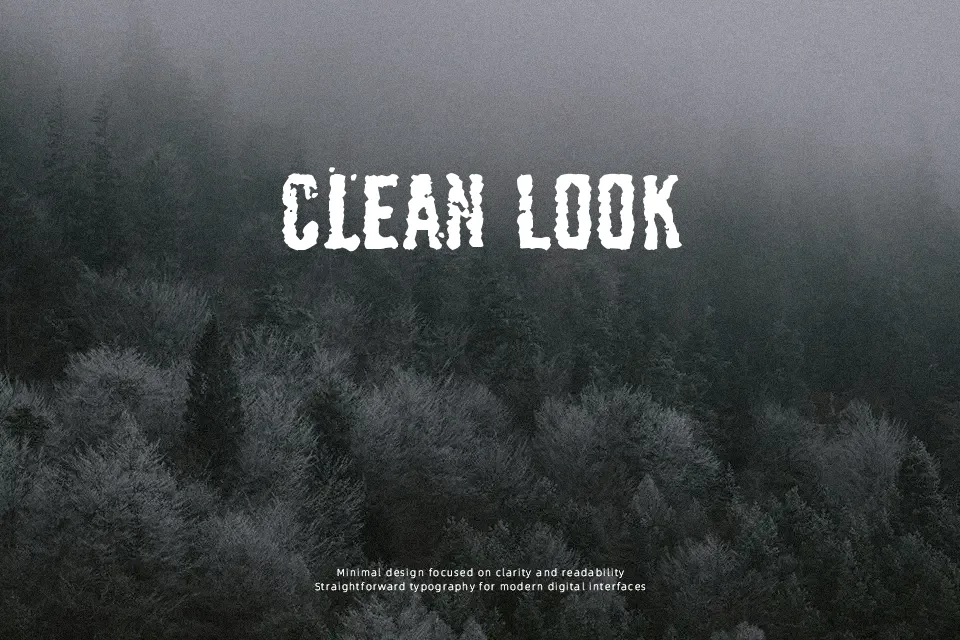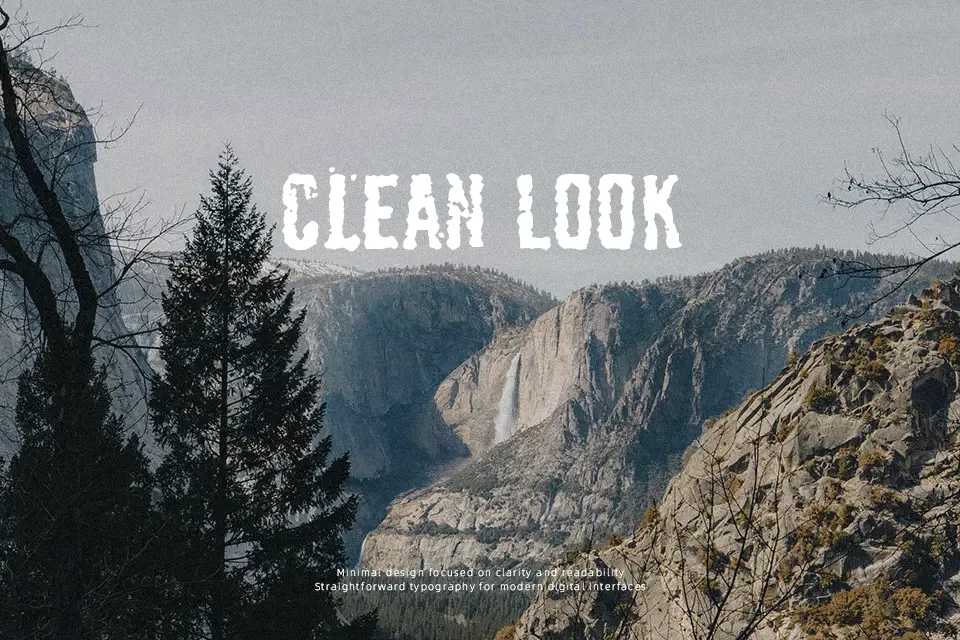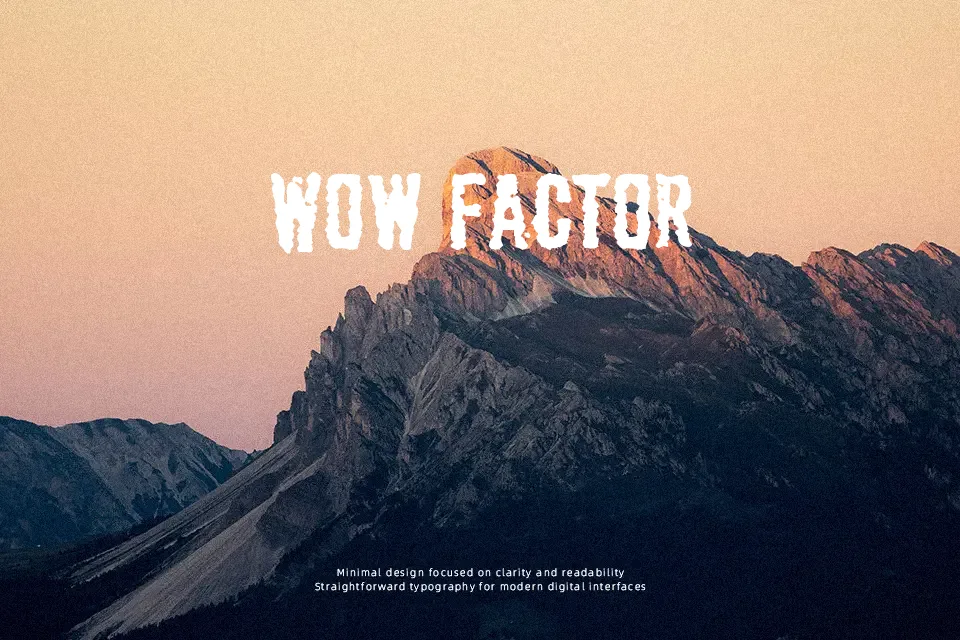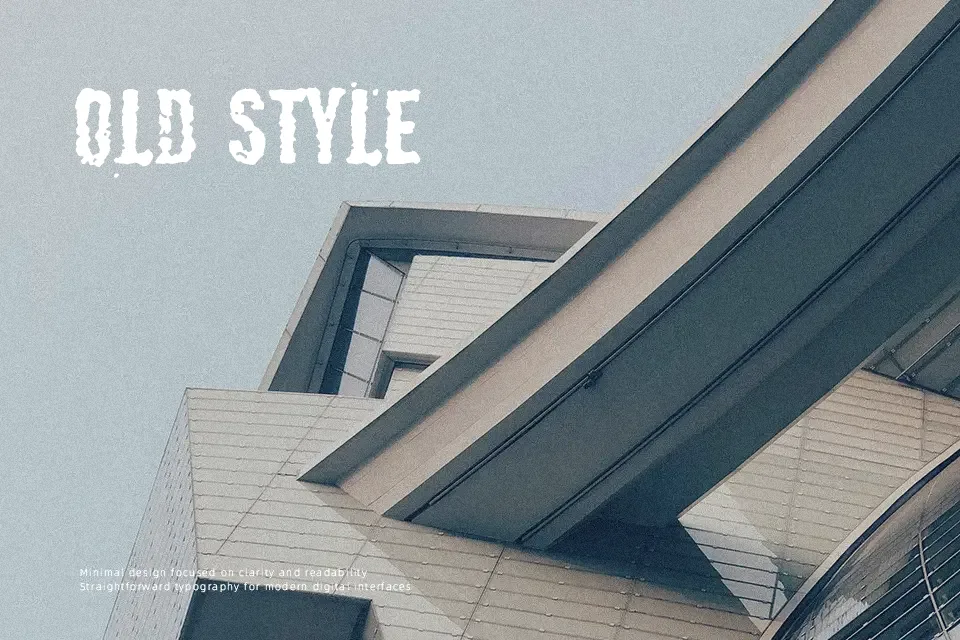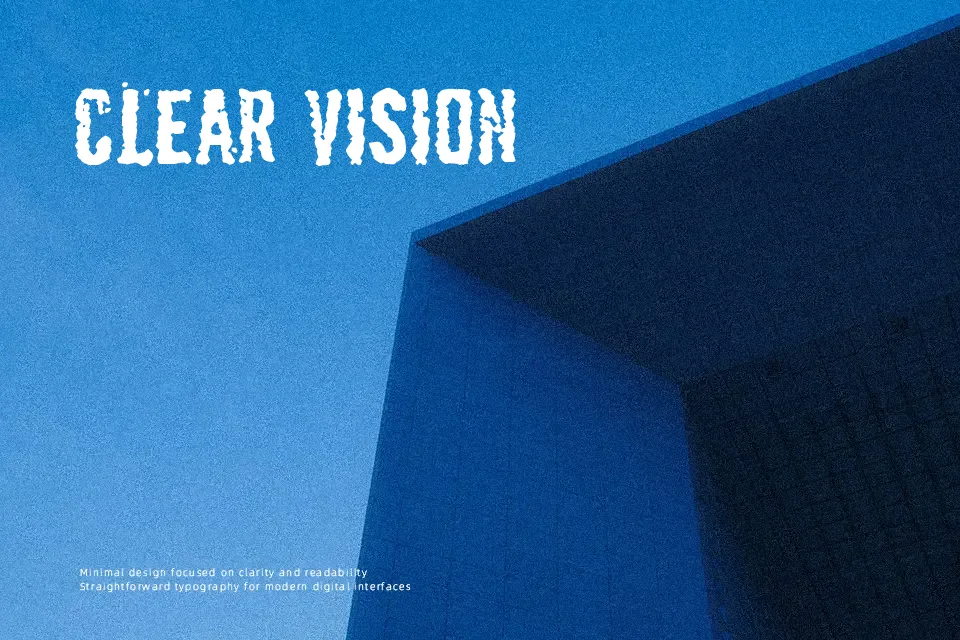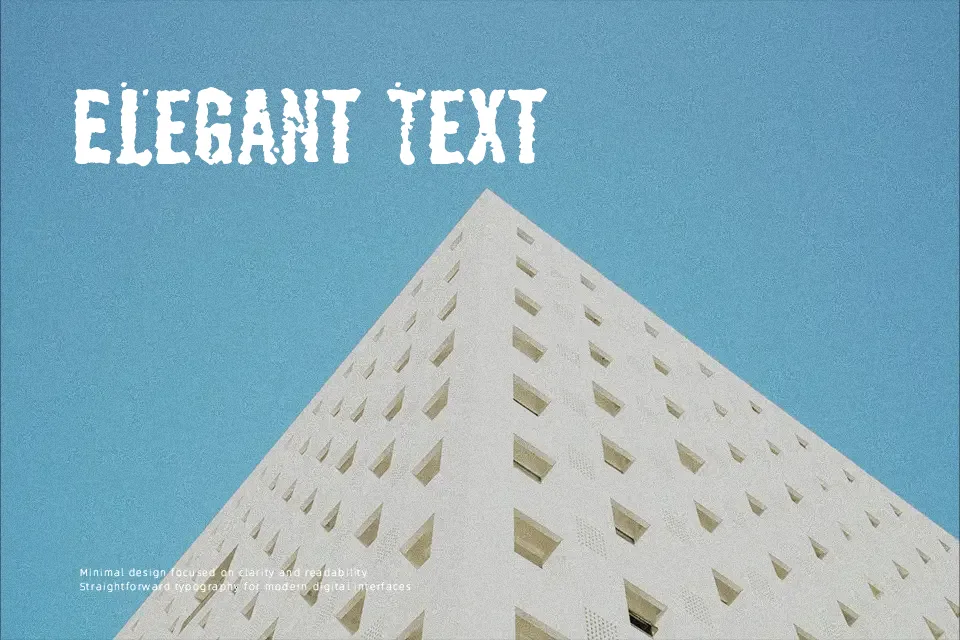
Apocalypse Font
Designed by Juha Korhonen
Uneven edges and rough surfaces define this font’s aggressive character. The 208-glyph set maintains a consistent distressed aesthetic across uppercase, lowercase, numerals, and special characters, with medium stroke contrast and bold weight that commands attention without sacrificing cohesion. It delivers an immediate sense of decay and urgency through texture rather than structural novelty. Horror film titles, dystopian game branding, and underground music album covers benefit from its raw visual impact. However, the distressed treatment that gives it character also limits flexibility—at small sizes, the eroded details blur into noise, and extended reading becomes taxing due to irregular letterforms. This typeface works when you need drama over clarity, but it fails in contexts requiring legibility or professionalism.
– horror movie posters and title cards
– survival video game branding
– underground music album covers
– dystopian event flyers
– body text or paragraphs
– small print applications
– corporate branding materials
– extended reading content
Perfect for film, gaming, and headline, with a bold and decorative style.